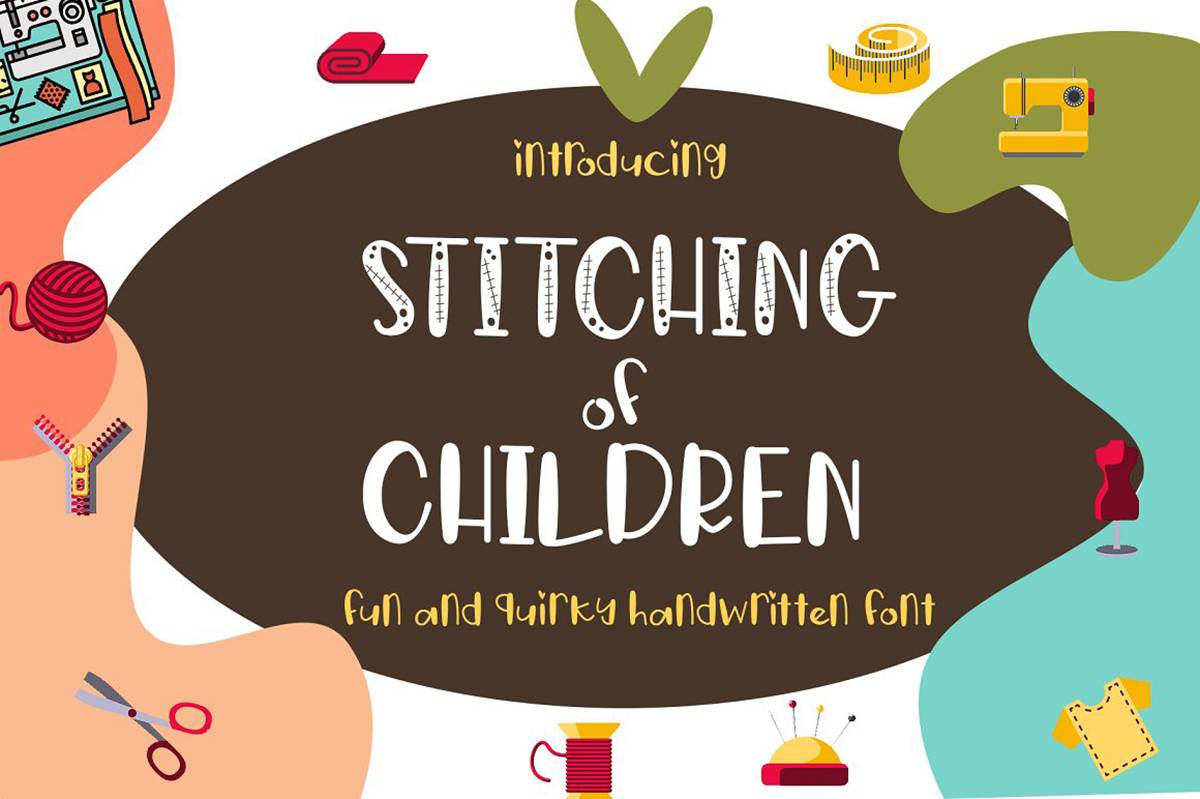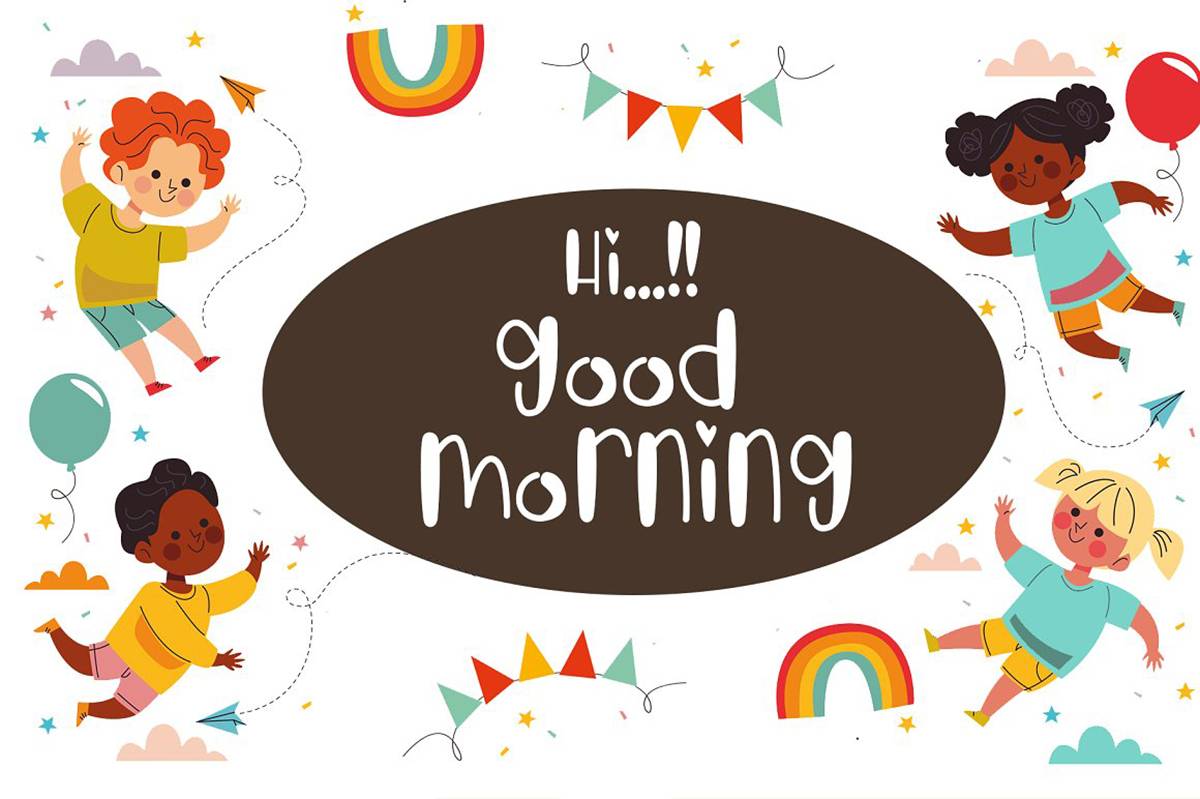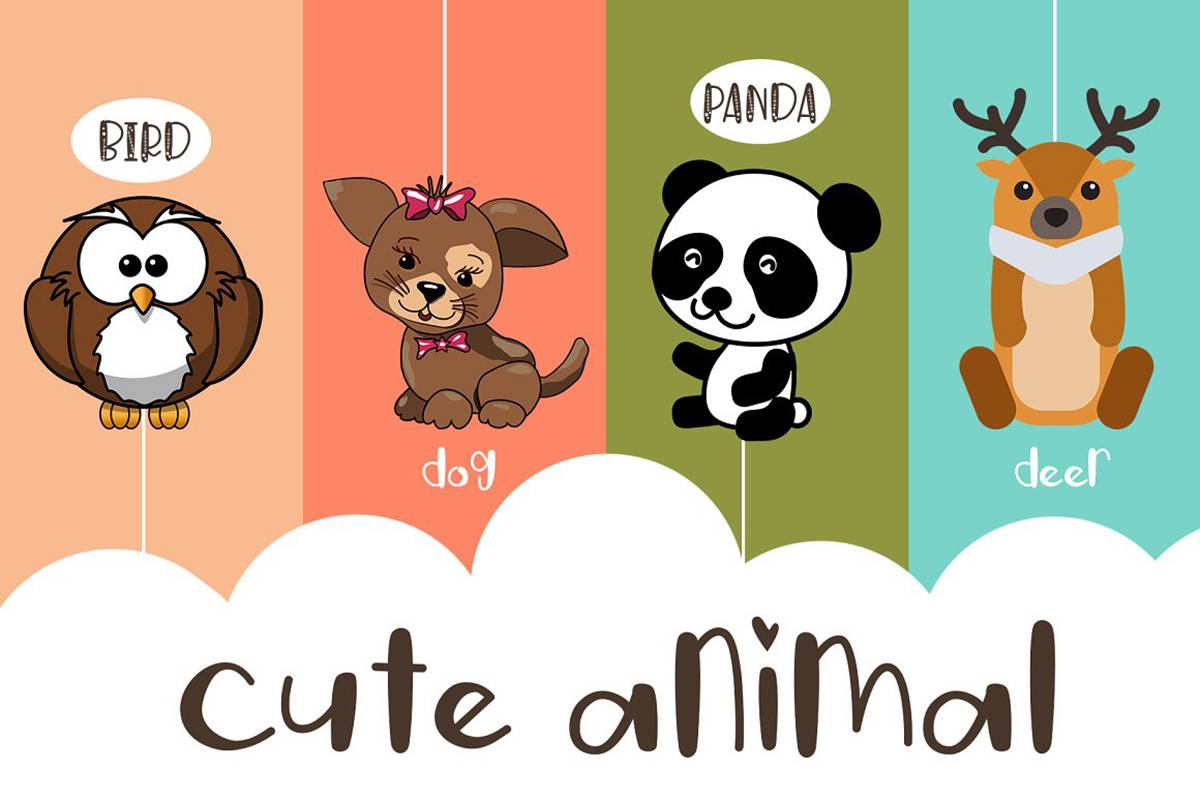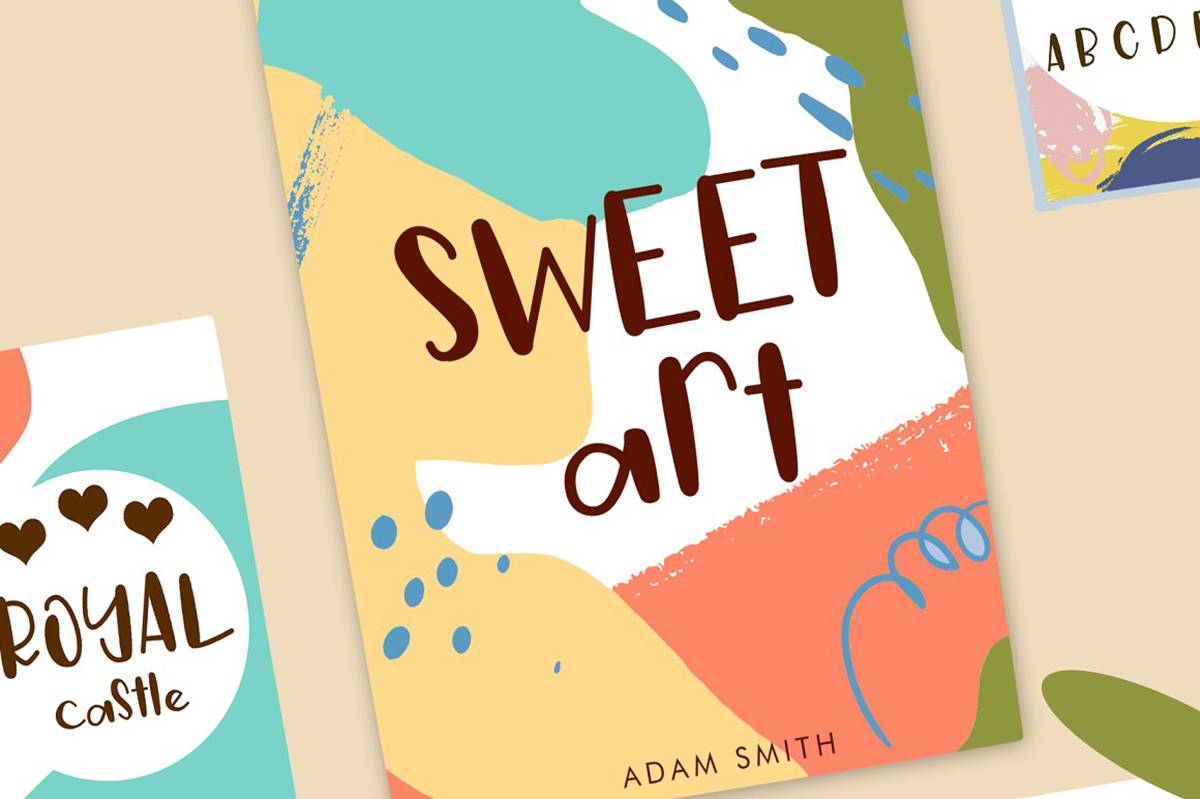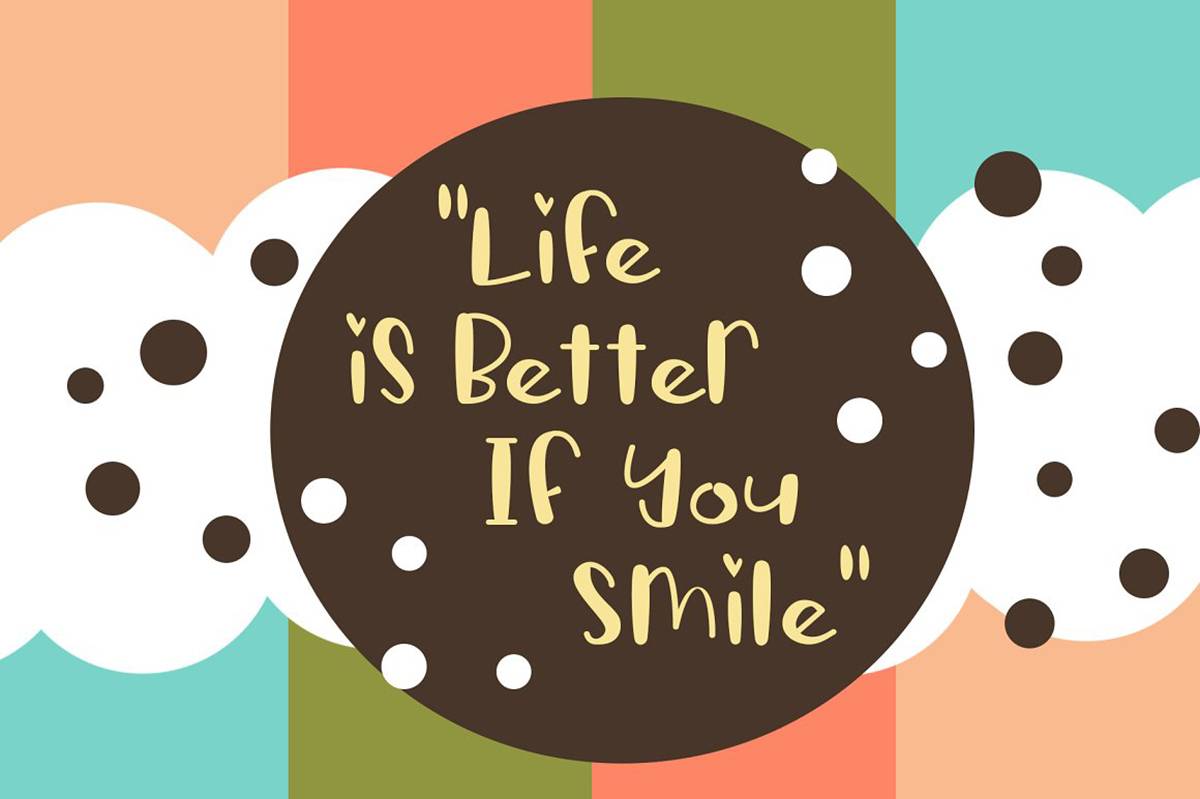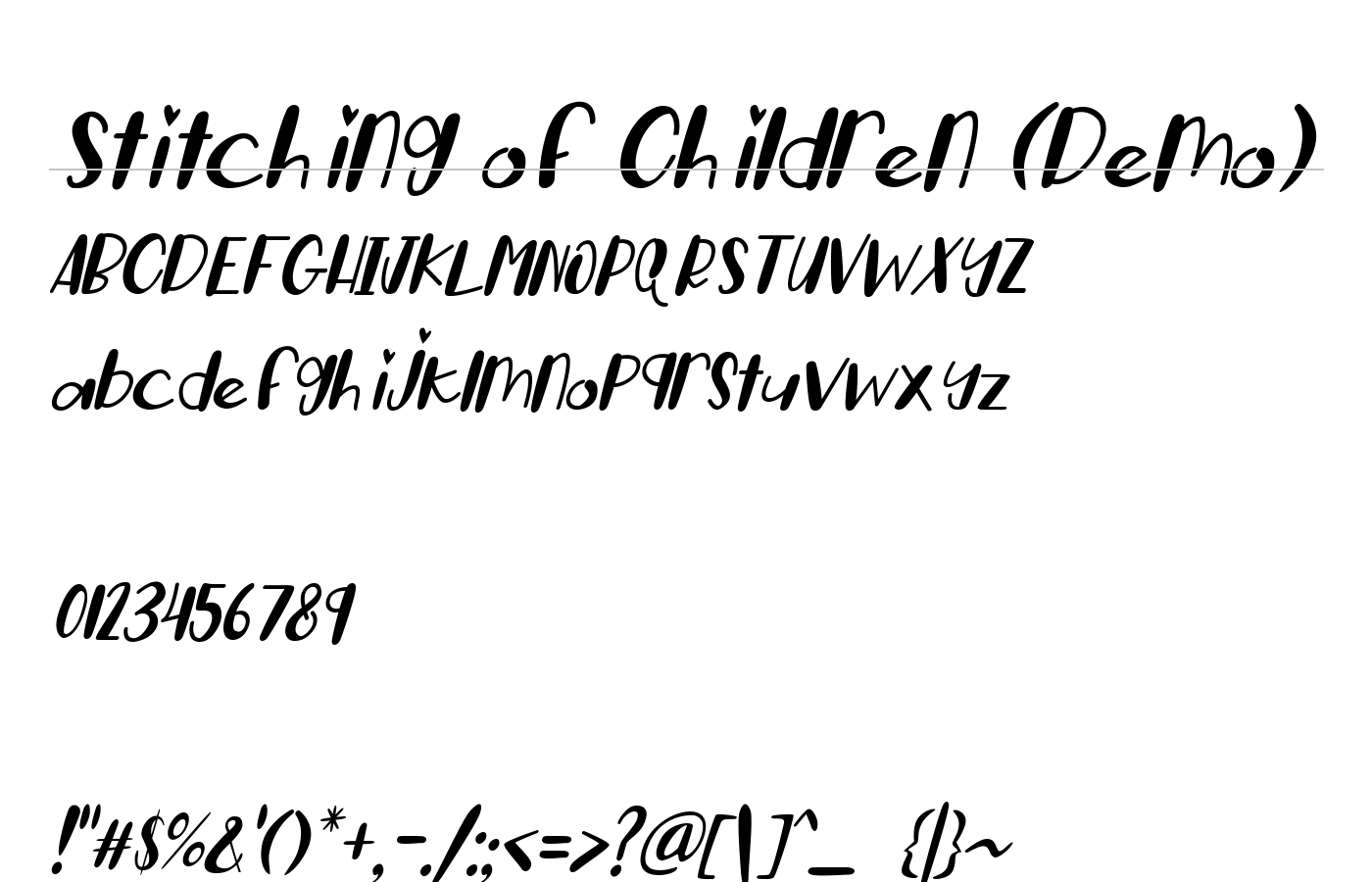
Stitching of Children is a playful and casual handwritten script font with a lively, slightly uneven stroke that adds charm and warmth. Featuring thin to medium weight with a narrow, flowing style and whimsical details like heart-shaped dots on the i's, it conveys a friendly and approachable feel perfect for children’s products, invitations, or creative projects. This font works well in informal contexts where a personal, joyful touch is needed, especially in headlines or decorative text.
Stitching of Children Font
About Stitching of Children Font